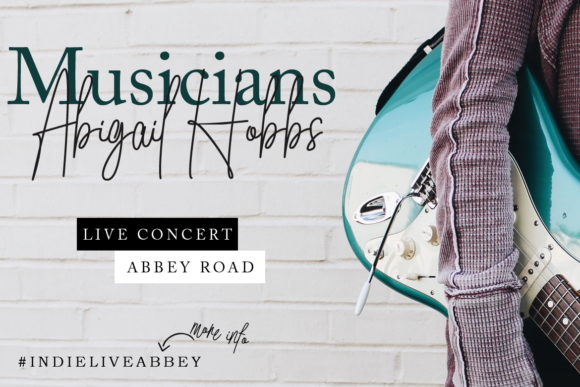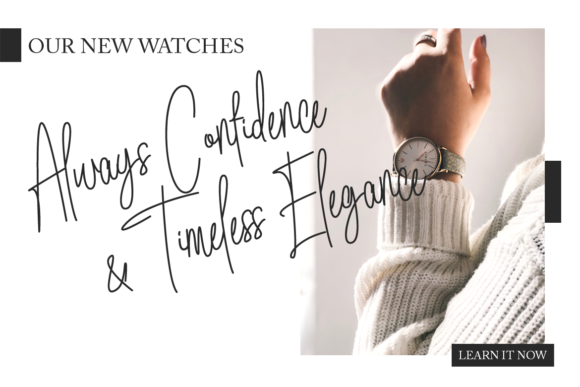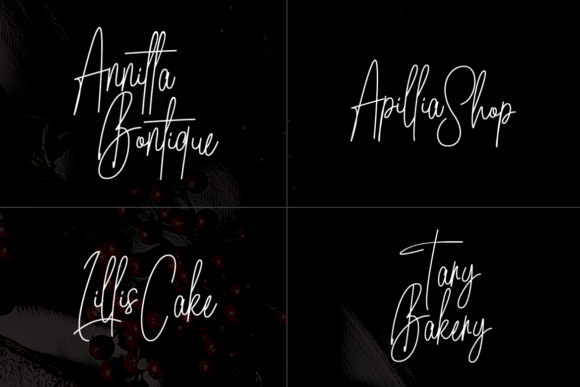
About Bristya Signature Font
Bristya Signature is a classy and elegant handwritten font. It is perfect for logos, signatures, social media post, product packaging and any creative design.